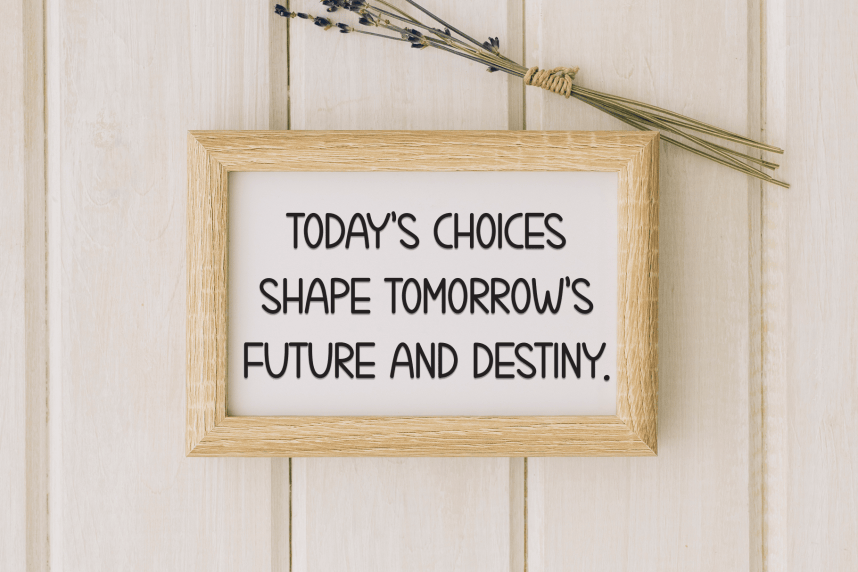
Library – Simple Handmade Font
Library – Simple Handmade Font is a sweet and friendly handwritten display font. Cute and fun, this font is ideal for writing wedding invitations, cards, or any other design that might need a playful touch!